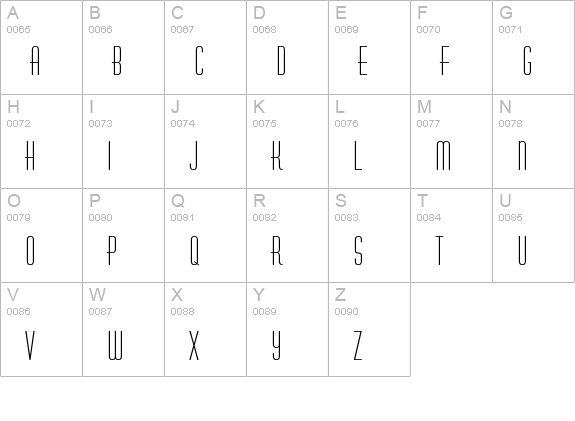
Huxlee Vertical Font Details
Introducing Huxlee Vertical font, a sleek and modern typeface that exudes sophistication and elegance. With its tall and slender letterforms, Huxlee Vertical is perfect for creating eye-catching headlines, branding materials, and editorial designs. This versatile font strikes the perfect balance between classic and contemporary, making it suitable for a wide range of design projects. What's even better is that Huxlee Vertical is available for free download at FontsMarket.com. This means you can easily enhance your creative projects with this stylish font without breaking the bank. Whether you're a professional designer or a hobbyist looking to elevate your work, Huxlee Vertical is a must-have addition to your font collection. Download it today and start creating stunning designs that stand out from the crowd.